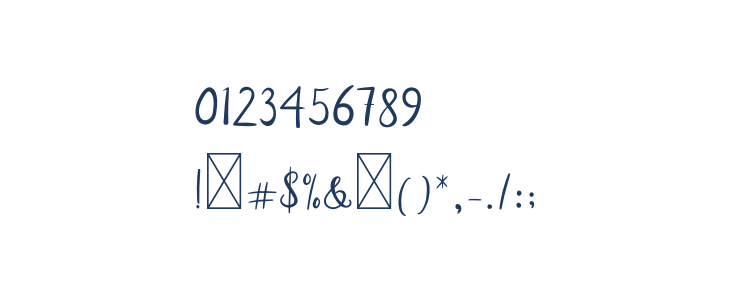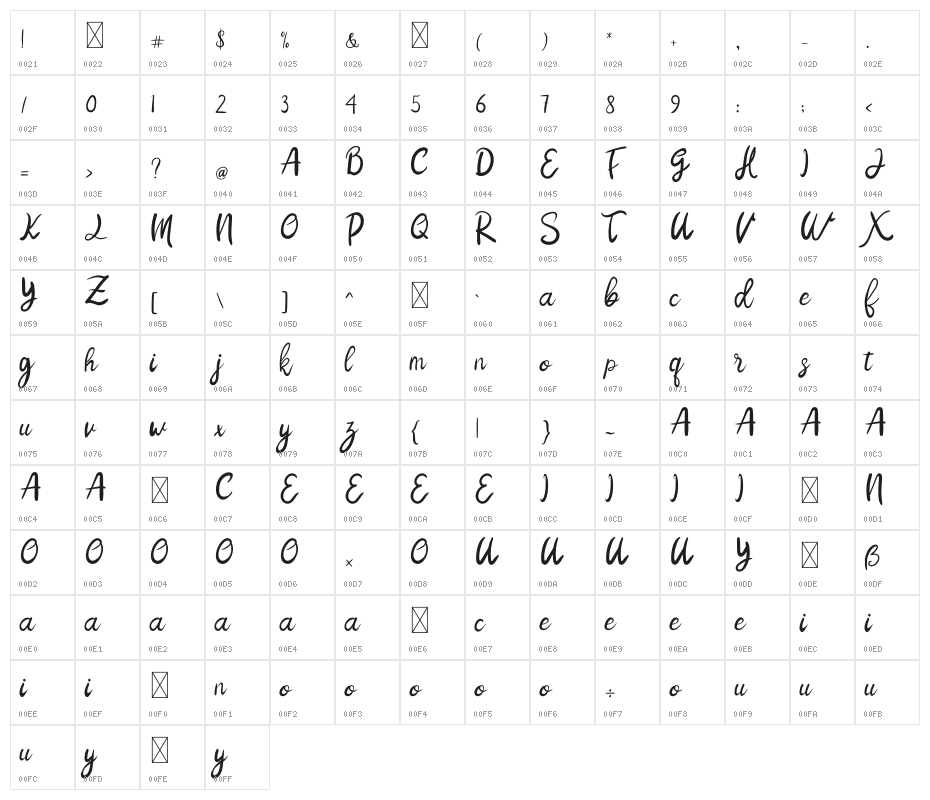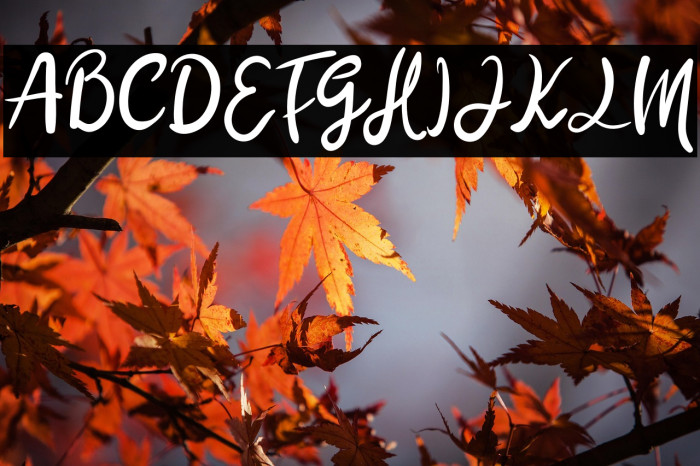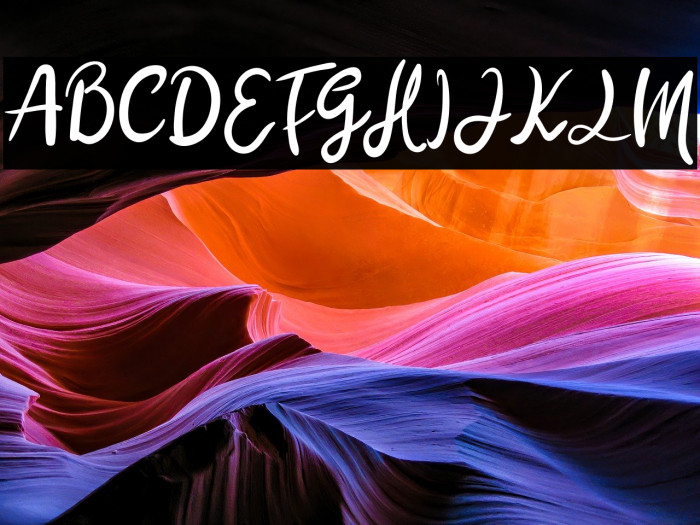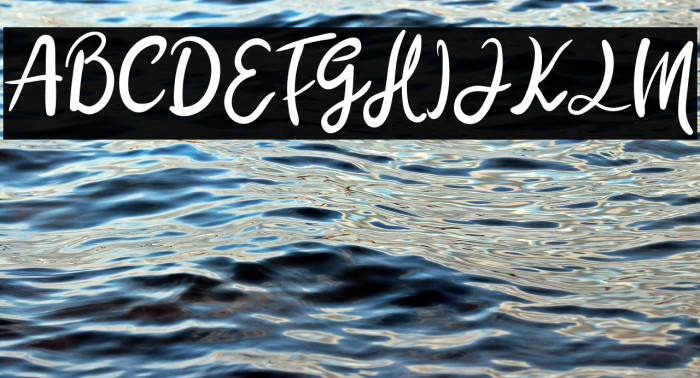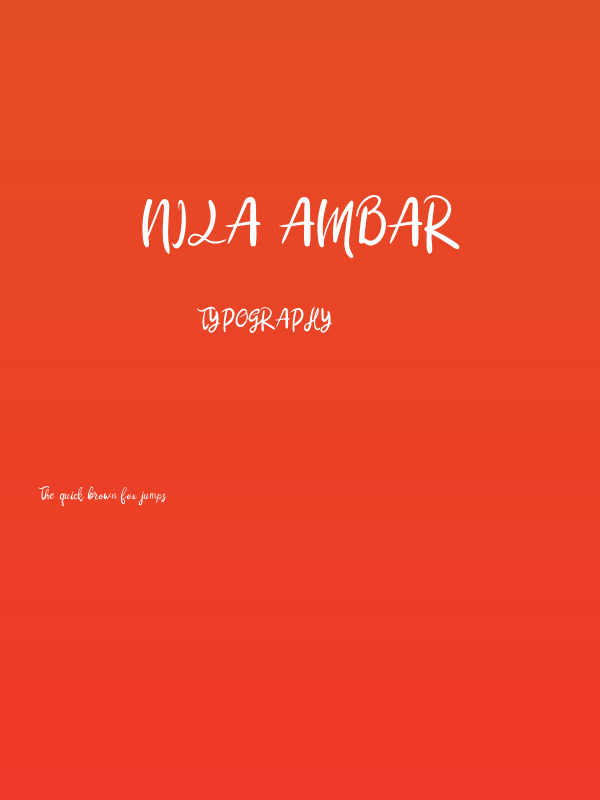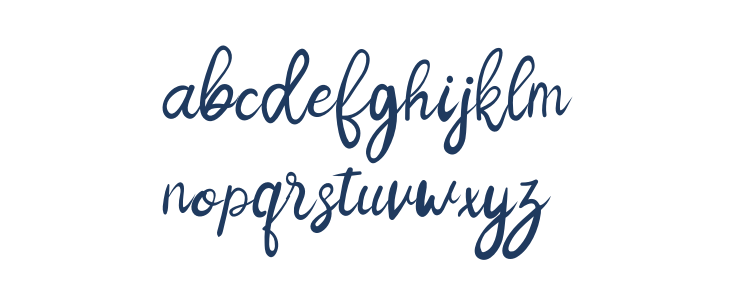
Nila Ambar Font
Nila Ambar Description
This font features a lively and flowing script style, characterized by its elegant and cursive letterforms. The uppercase letters exhibit a graceful, sweeping motion, while the lowercase letters maintain a consistent fluidity, enhancing the overall aesthetic. The numerals are clear and legible, complementing the script style without compromising readability. Special characters are thoughtfully designed to match the font's dynamic nature. This font's artistic flair makes it suitable for creative and expressive design projects.
| Proposed Projects | Ideal for wedding invitations, greeting cards, branding, and artistic projects requiring a personal touch. |